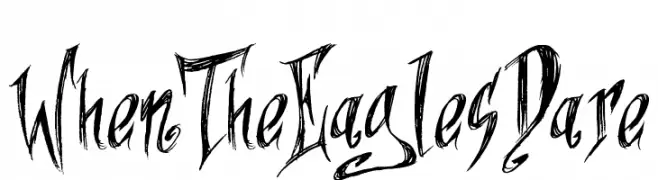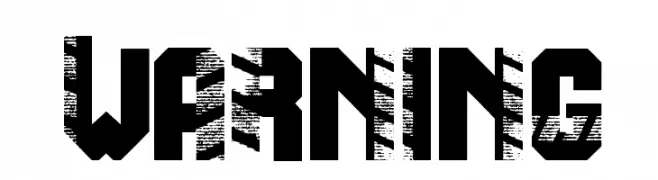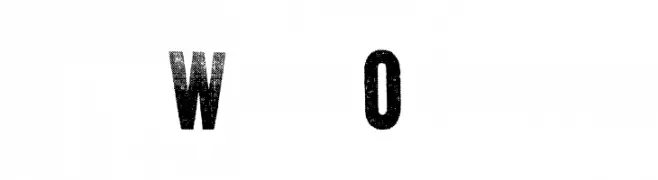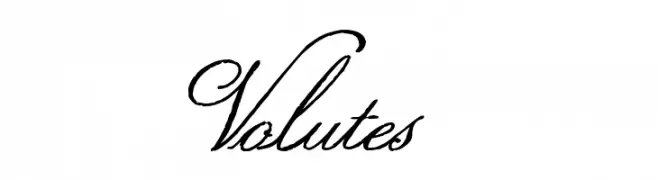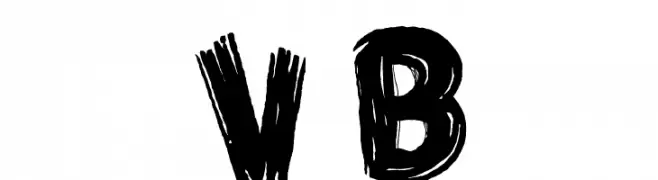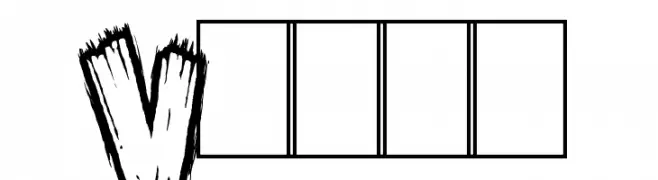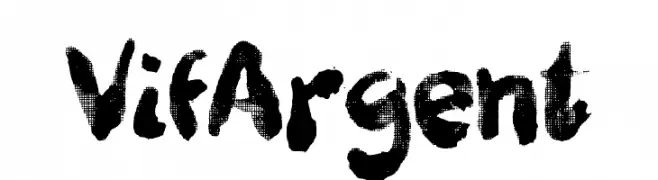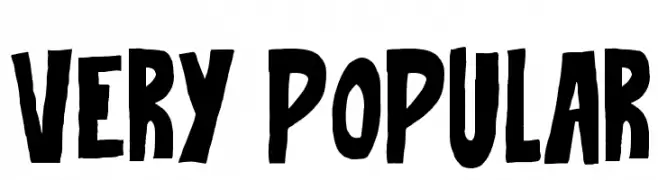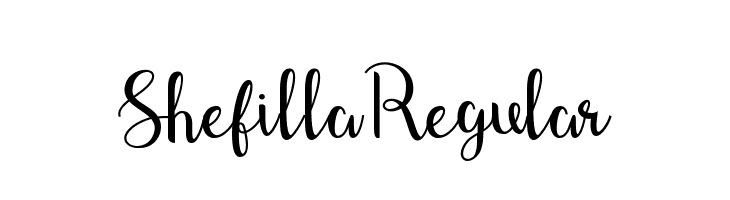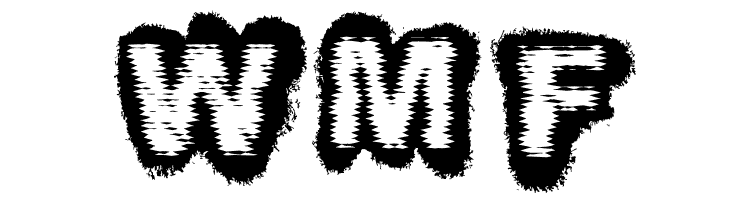
A dynamic, edgy font with sharp, angular strokes and a hand-drawn appearance.
A bold, distressed font with a glitch effect, ideal for modern and edgy designs.
A dynamic, ink-splattered cursive font with a rebellious, artistic flair.
A bold, distressed font with a vintage, rugged appearance.
An elegant script font with intricate swirls and flourishes.
A bold, brush-stroke font with a dynamic and expressive style.
A bold, textured font with a dynamic, graffiti-like style.
A bold, distressed industrial font with a vintage aesthetic.
A bold, hand-painted style font with dynamic, textured strokes.
A bold, hand-drawn font with a playful and energetic style.